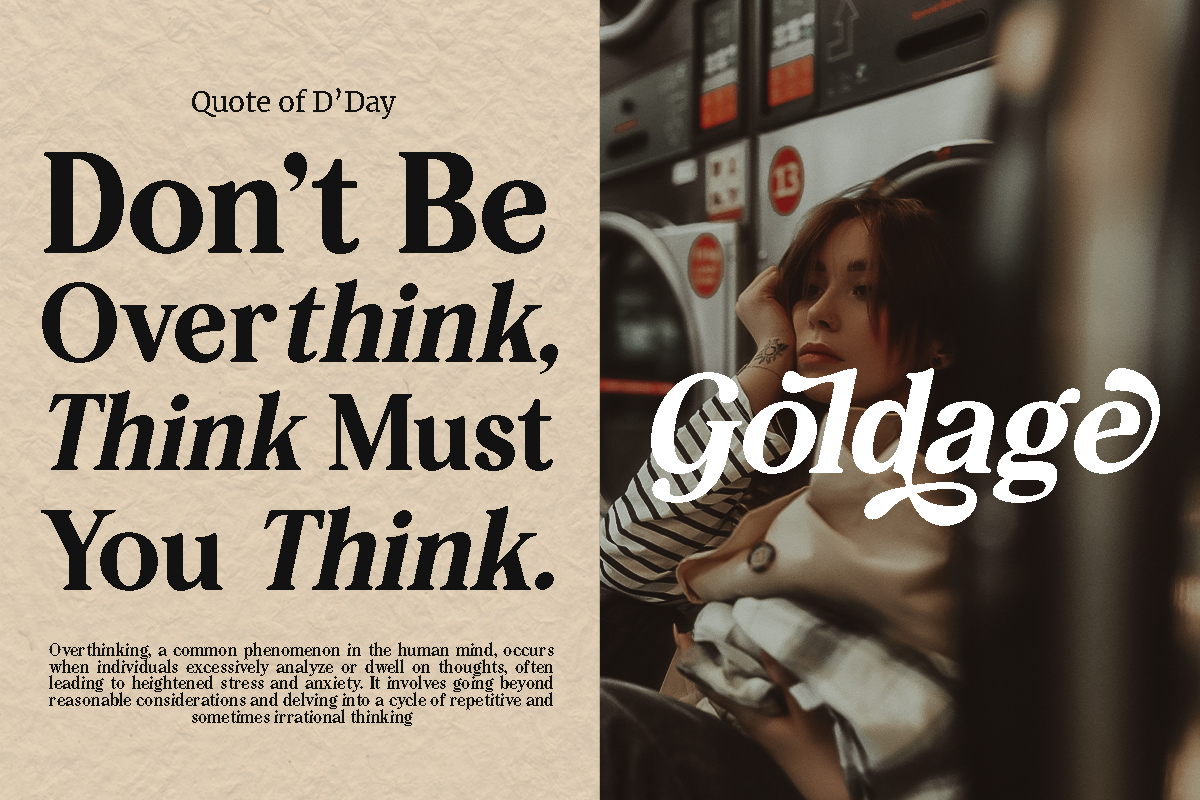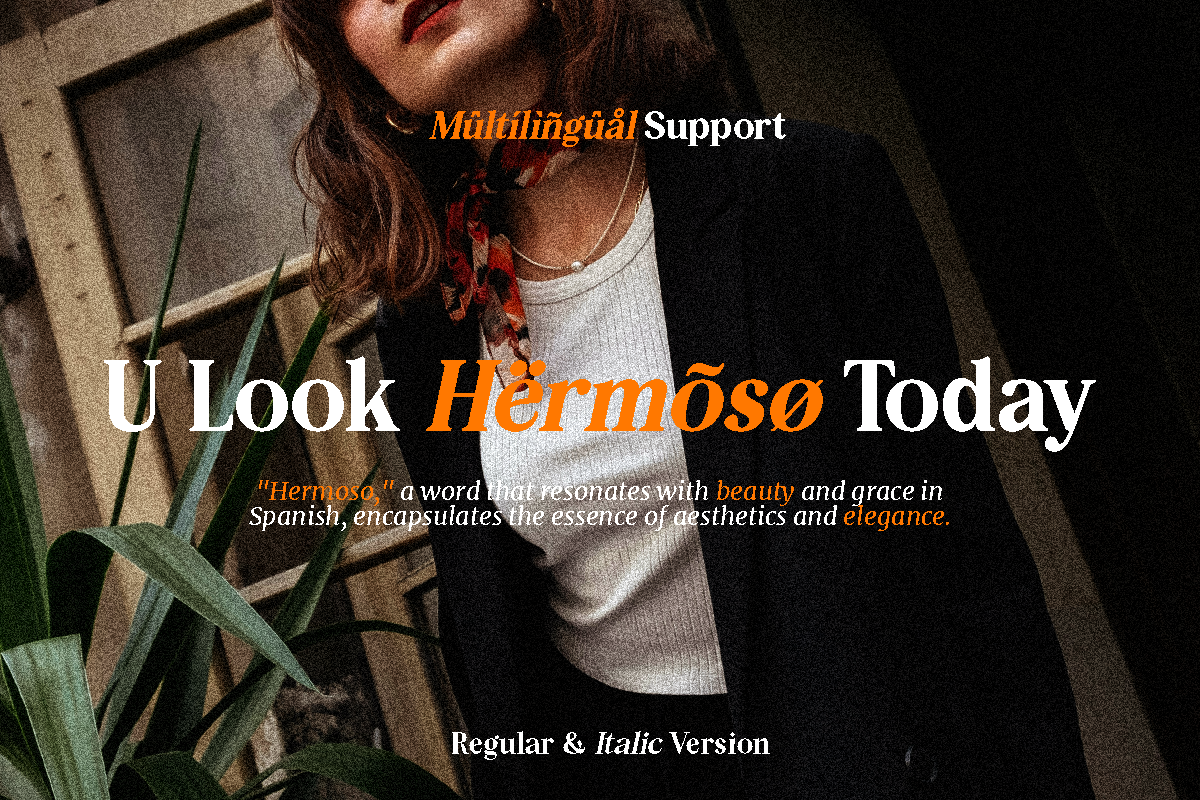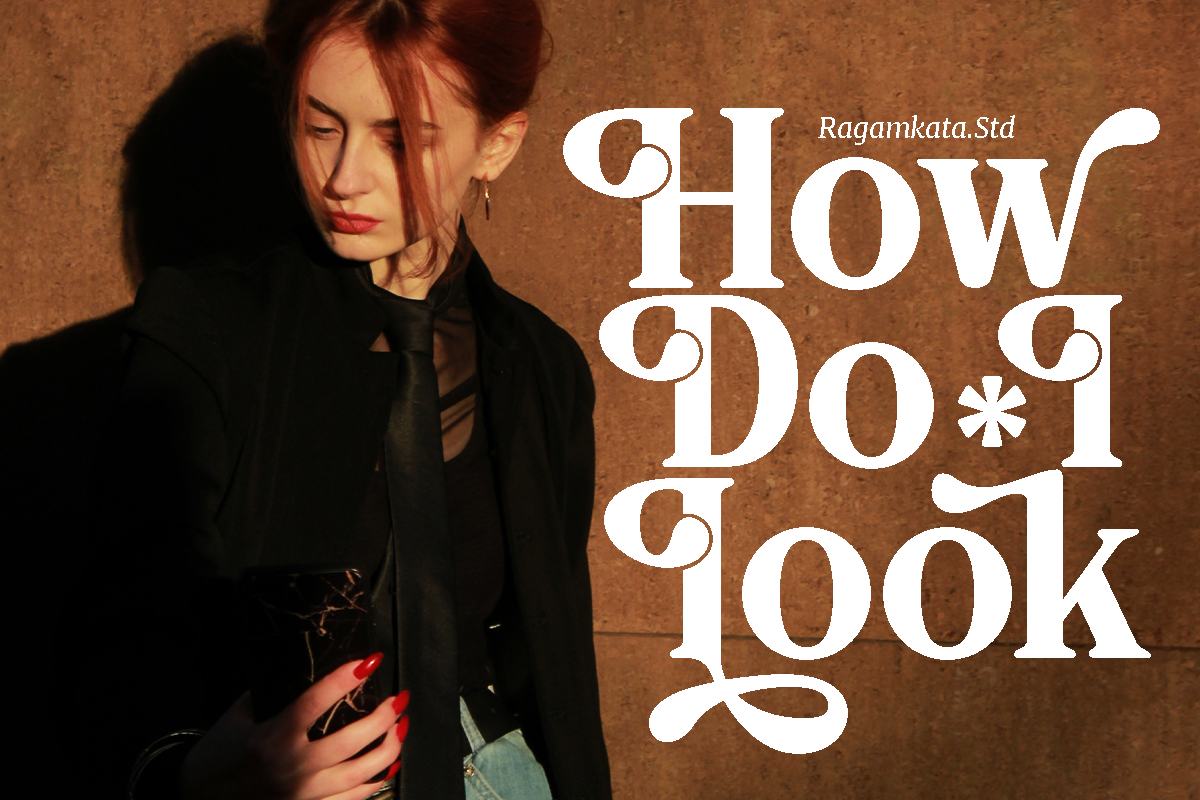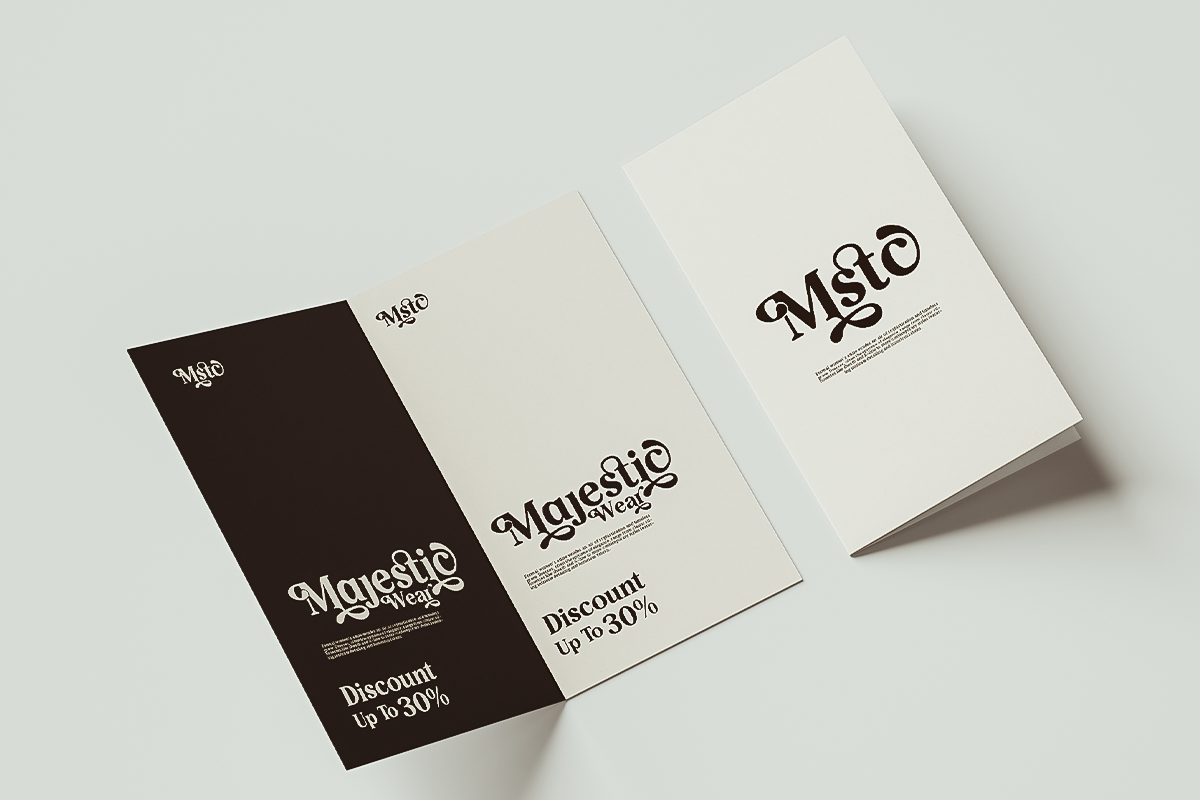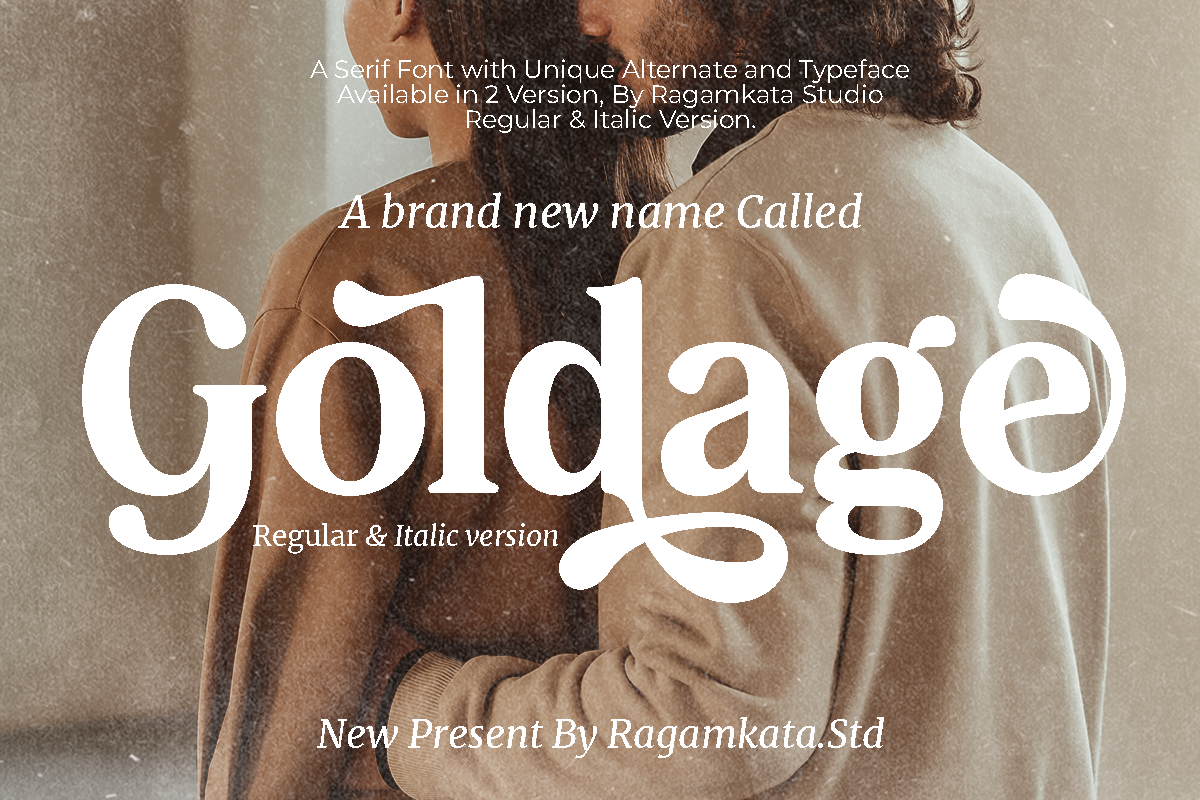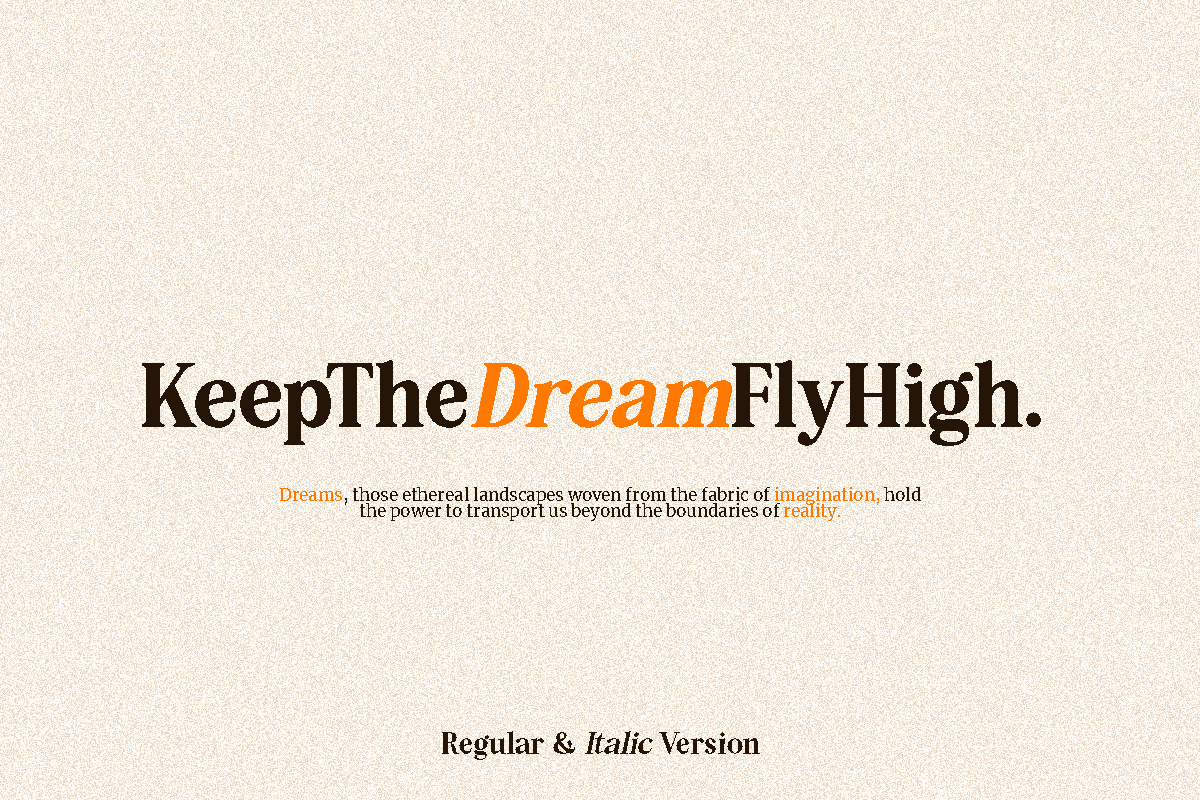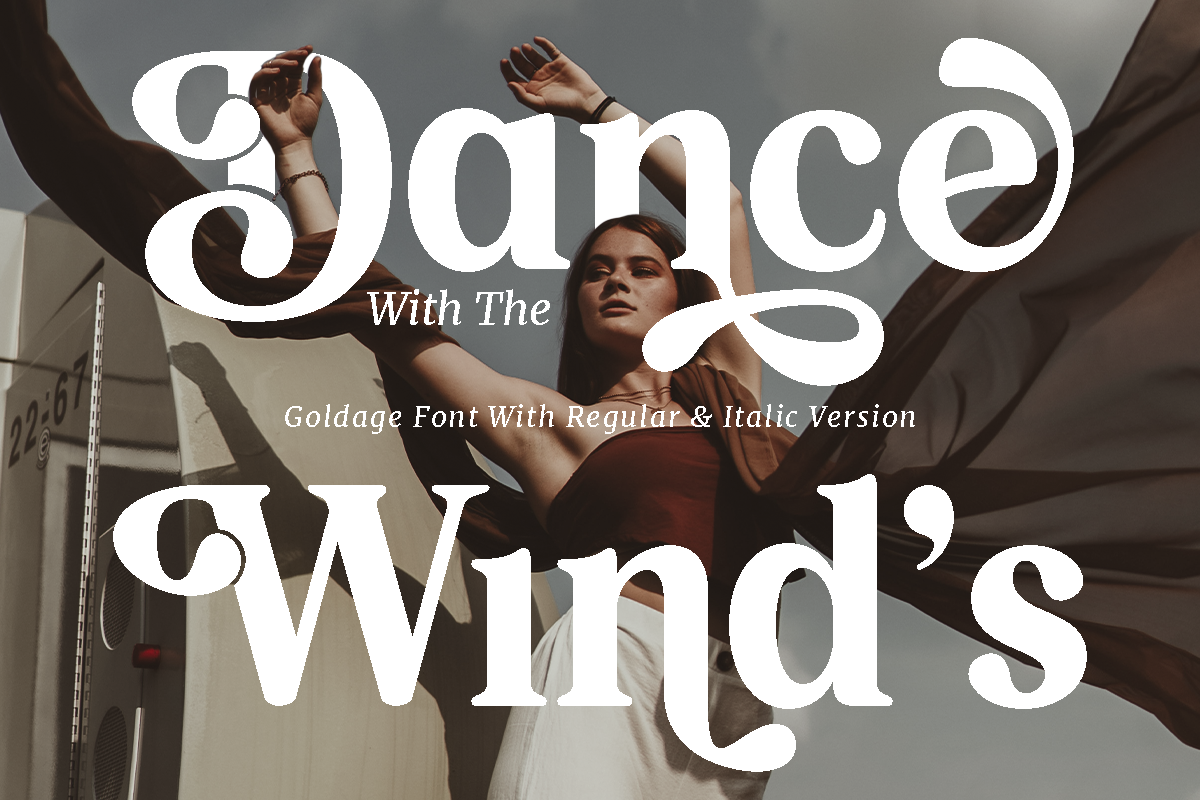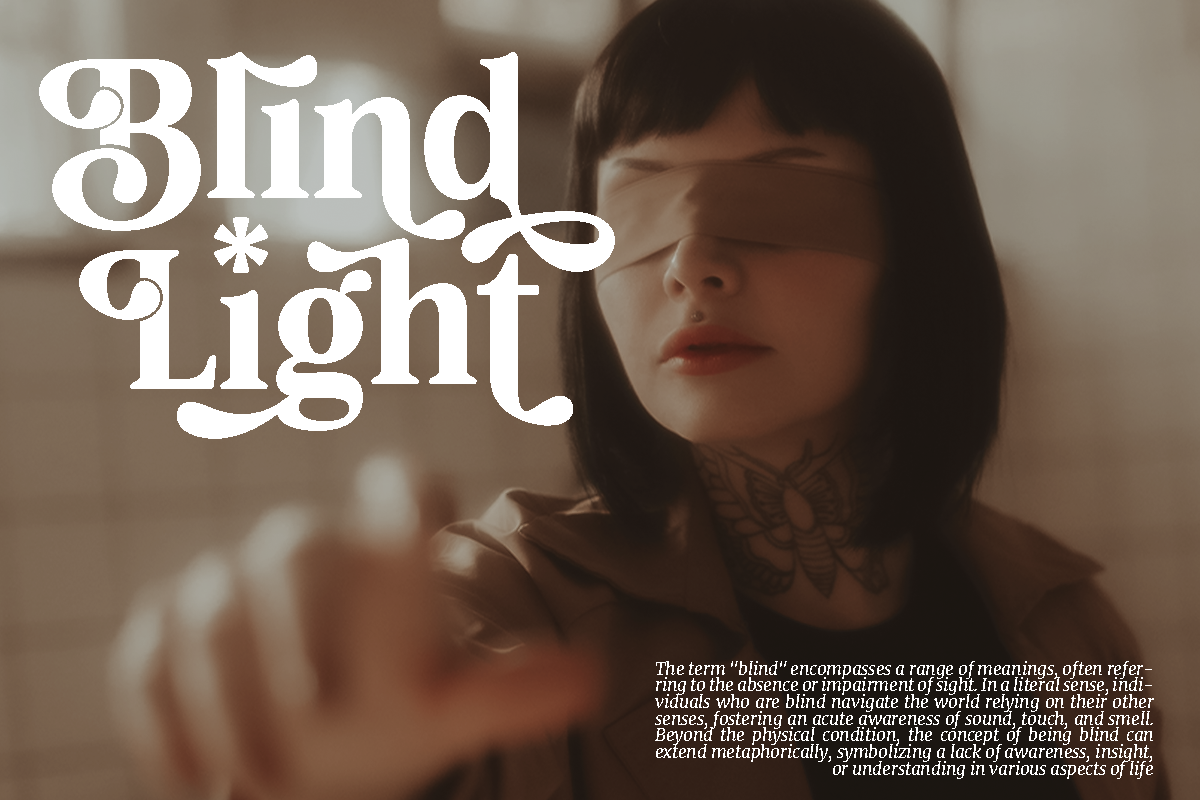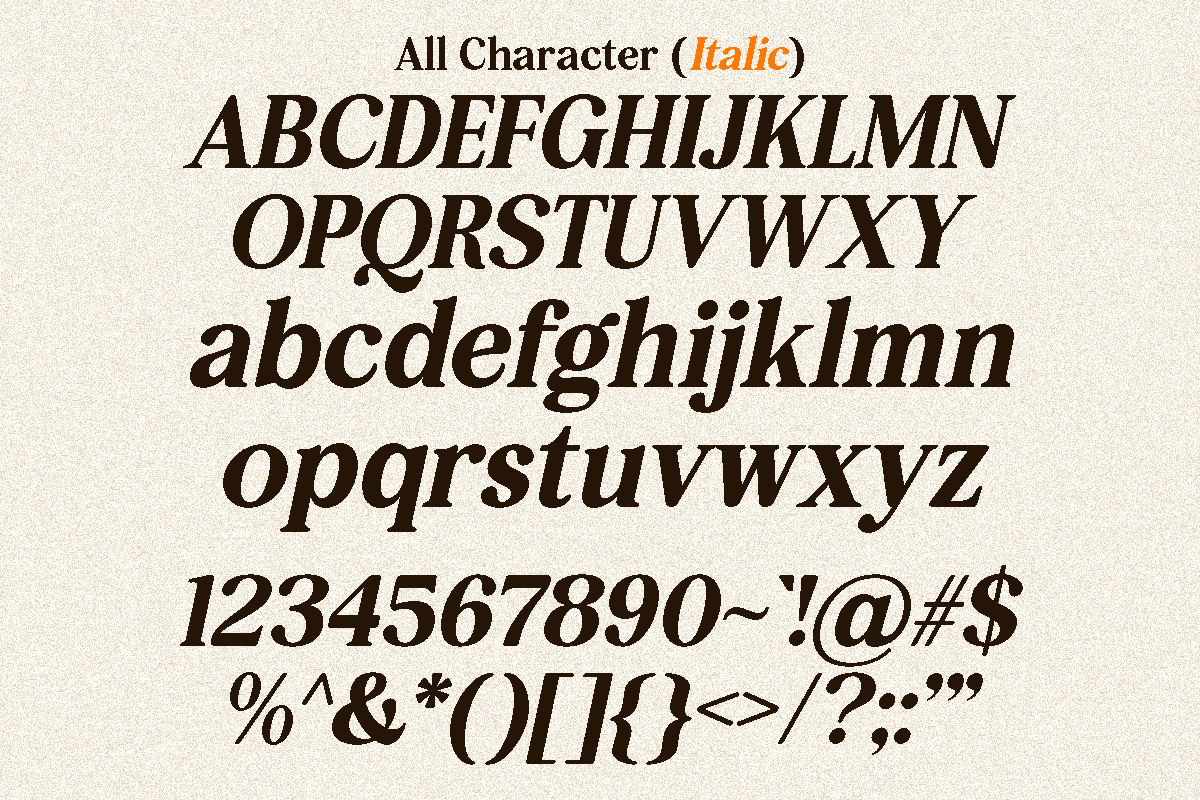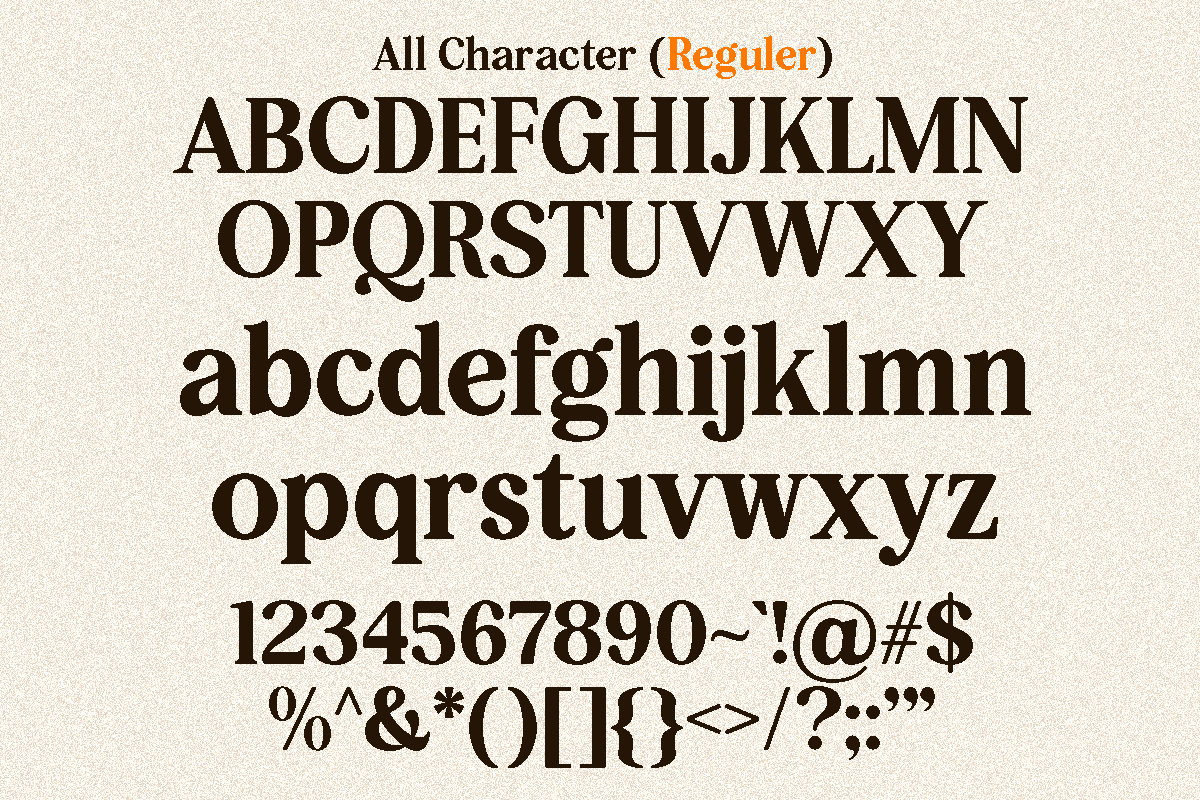
Goldage - Elegant Typeface
Goldage, an elegant and stylish font that will make your design look priceless. A graceful typeface, with a perfect shape and ligatures will make your design look graceful. This typeface is a perfect for a luxury logo, classy editorial designs, fashion brand and promotion, and much more. Get Goldage to make your design as pure as Gold
Goldage font will also include some features :
- Letters, numbers, symbols, and punctuation